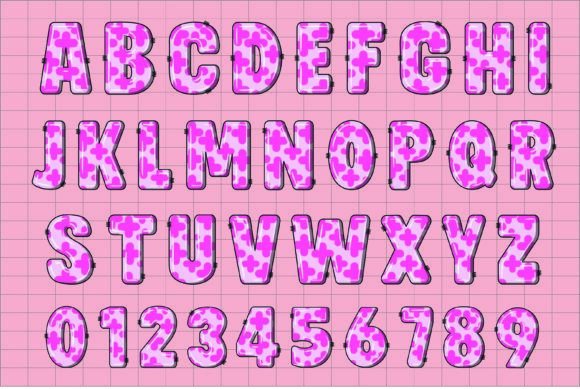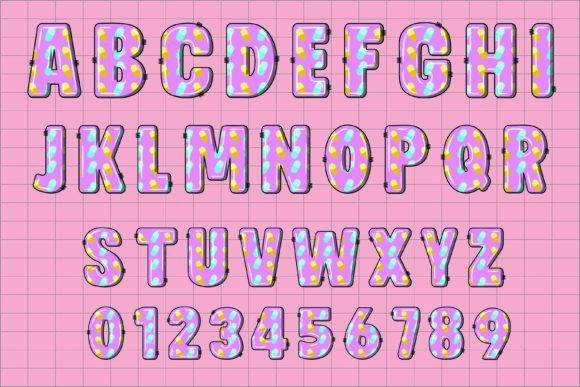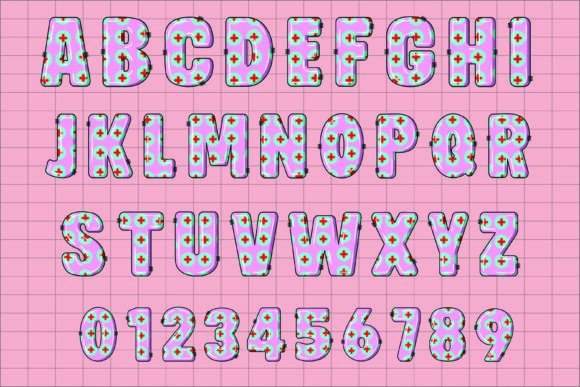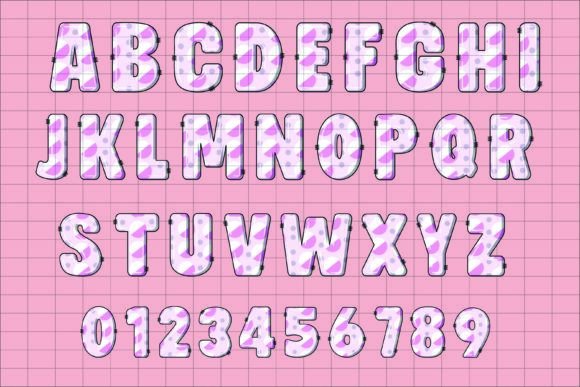
Introduction to Nurse 3d Font Font Font
Fonts play a crucial role in design, and the Nurse 3d Font Font font is a typeface that brings both character and versatility to any project. Whether you’re working on a branding project, a website, or a print design, the Nurse 3d Font Font font offers a unique style that can elevate your work.
**Nurse 3D Font** is a clean and professional typeface designed with readability and simplicity in mind.
It typically features soft, rounded edges and a balanced structure, making it easy on the eyes for extended reading The design of the font is optimized for use in medical settings, where clarity and legibility are crucial.
Key Features of Nurse 3d Font Font Font
Why Choose Nurse 3d Font Font Font?
The Nurse 3d Font Font font is more than just a typeface – it’s a design tool that helps you communicate your message with style and clarity. Its unique character set and versatile design make it suitable for a wide range of applications, from elegant invitations to bold headlines.
With its carefully crafted letterforms and balanced proportions, the Nurse 3d Font Font font ensures readability and visual appeal across all mediums.
What makes Nurse 3d Font Font font special?
The Nurse 3d Font Font font stands out with its unique design, exceptional readability, and versatility across various design applications.